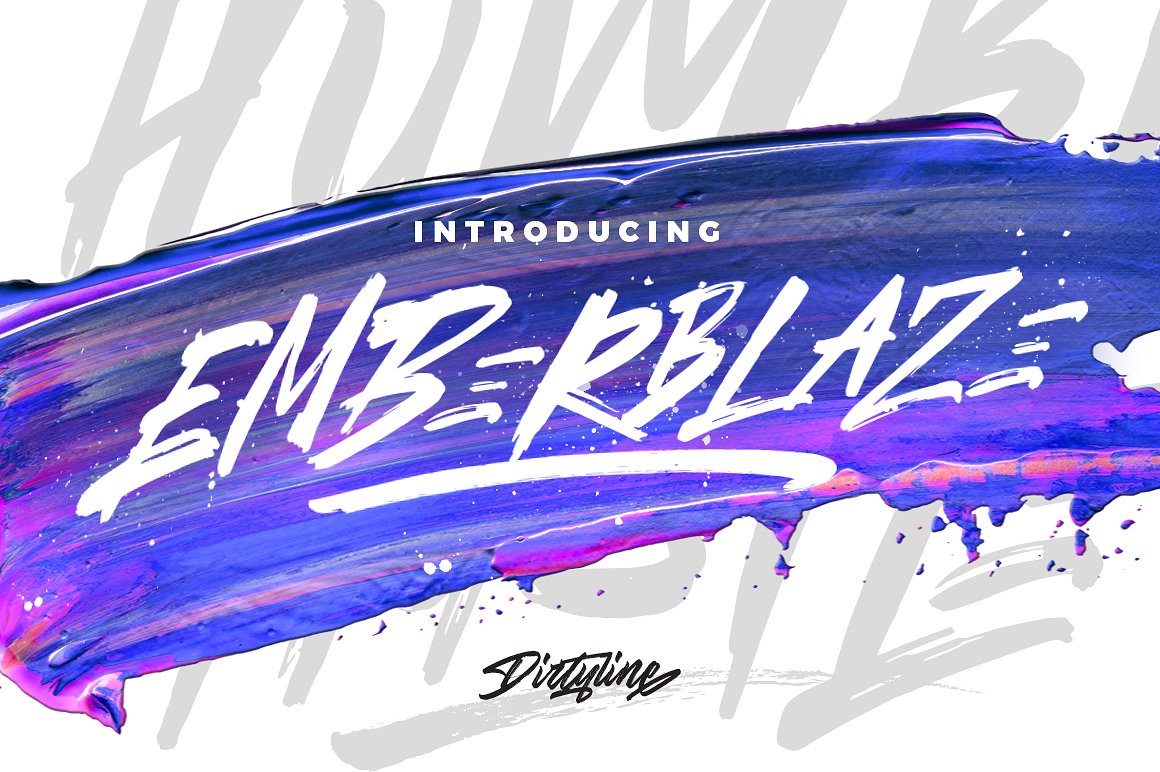
Emberblaze Font
Emberblaze Font is perfect for fantasy gaming logos, fire department branding, barbecue restaurant signage, volcanic tourism materials, energy company advertisements, forge and metalworking shops, hot sauce packaging, campfire equipment marketing, passion-driven lifestyle brands, and intense motivational campaigns.
What makes Emberblaze Font so exciting is its spectacular fusion of smoldering intensity and explosive energy that ignites immediate visual impact through dynamic typographic expression. This powerfully crafted typeface features flickering letterforms with flame-inspired curves and burning character variations that instantly convey heat, passion, and unstoppable force. The font's fiery construction and incendiary aesthetic create an immediate sense of elemental power and consuming energy, making it ideal for projects that need to communicate burning desire, intense passion, and the transformative power of fire to audiences seeking dramatic impact and emotional intensity.
The Emberblaze Font family typically includes multiple scorching weights and blazing styles, often featuring regular, bold, and inferno variations along with flickering italic versions. Fire-themed font collections frequently offer additional flame elements such as spark accents, ember effects, and combustion ligatures that enhance the incendiary aesthetic and provide designers with comprehensive options for creating maximum-impact fiery communications.
The explosive nature of Emberblaze Font makes it particularly effective for targeting demographics that value intensity, transformation, and powerful experiences. Brand managers and creative directors will find this font especially valuable for campaigns that must establish immediate emotional connection and capture the attention of audiences seeking maximum passion and transformative energy.
What distinguishes Emberblaze Font is its ability to channel controlled fire without appearing destructive or dangerous to inappropriate contexts. This strategic characteristic makes it suitable for passionate applications where projecting intensity and transformation is crucial for brand positioning.
Professional designers appreciate that Emberblaze Font brings invaluable elemental power to projects across industries including food service, entertainment, fitness, and lifestyle brands. Its fiery character and passionate appeal make it indispensable for organizations targeting markets where intensity, transformation, and consuming passion are primary value propositions.
The calculated combustion of Emberblaze Font ensures consistent high-impact performance across all flame-inspired marketing applications while maintaining safety and professional standards.